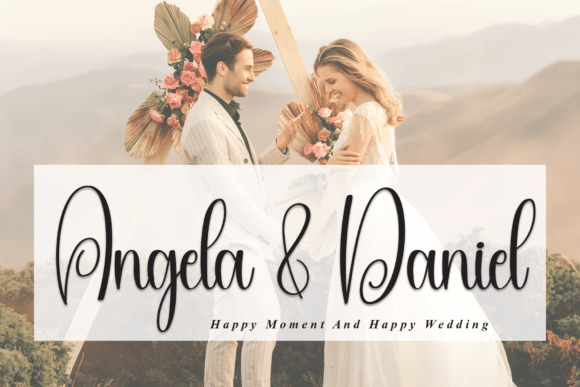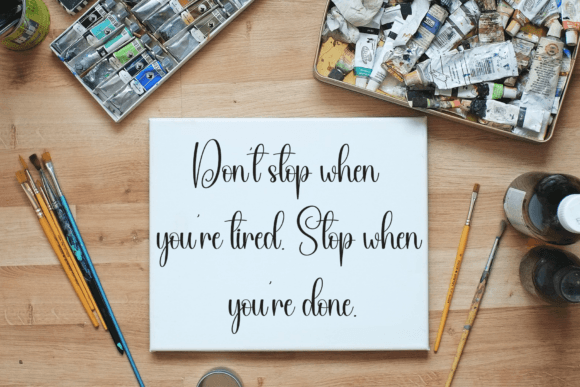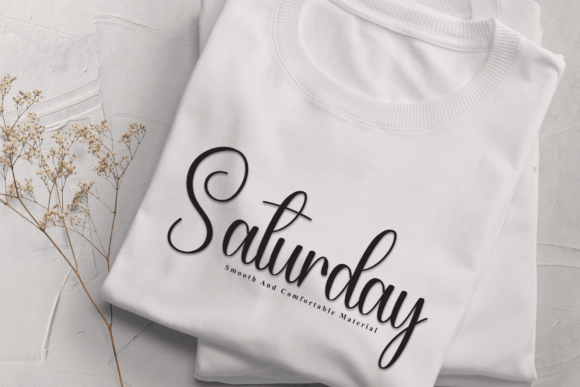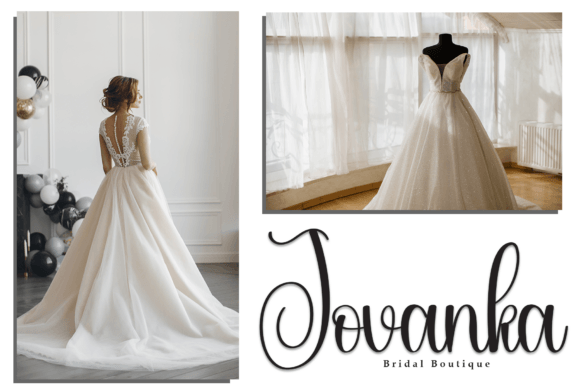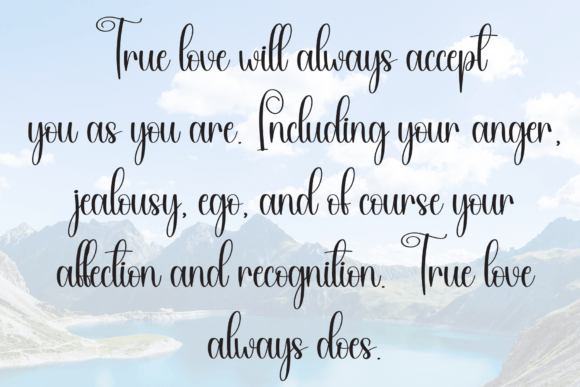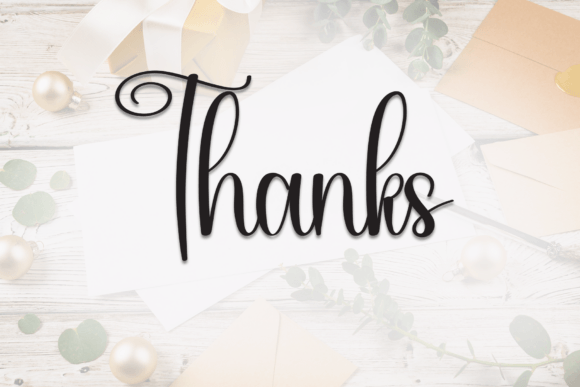
Introduction to Letter Newyear Font
As a designer, there’s nothing quite like the rush of excitement you feel when working on a new creative project. The blank canvas, the endless possibilities, and the thrill of bringing your vision to life – it’s a feeling that never gets old. But, have you ever found yourself struggling to find the perfect font to match the tone and atmosphere of your design? That’s where the Letter Newyear Font comes in – a stylish script font that’s sure to add a touch of elegance and joy to any project.
With its flowing, elegant strokes, the Letter Newyear Font is perfect for designers looking to create high-quality designs that stand out from the crowd. Whether you’re working on an invitation, a greeting card, or a branding project, this font is sure to impress. And, with its transparent background option, you can easily overlay it on any image or design element, giving you complete control over the look and feel of your project.
Key Features of Letter Newyear Font
- High-quality design resource ideal for creative projects, offering a unique and festive touch.
- Unique characteristics include bold, cursive, and elegant lettering, making it perfect for New Year’s celebrations and festive designs.
Honest Review: Letter Newyear Font
- ✨ Unique and creative design that stands out from the crowd
- ⚠️ Limited font sizes and styles, which may not be ideal for complex creative projects
Letter Newyear Font
Getting the Most Out of Letter Newyear Font
To maximize the potential of Letter Newyear Font, experiment with different font sizes, colors, and effects. Use the font in conjunction with other design elements to create a cohesive and visually appealing design.
Common Use Cases for Letter Newyear Font
Letter Newyear Font is suitable for a variety of creative projects, including invitations, posters, and social media graphics. Its high-quality design makes it an excellent choice for presentations, reports, and other professional documents.